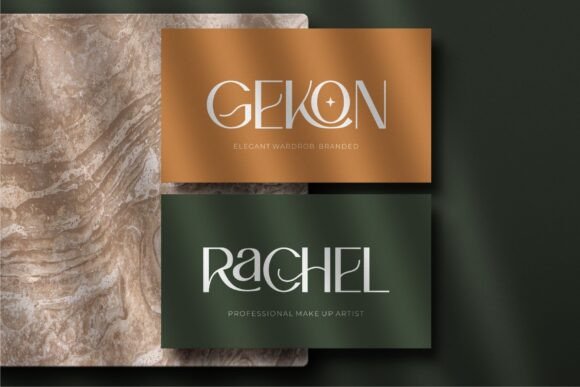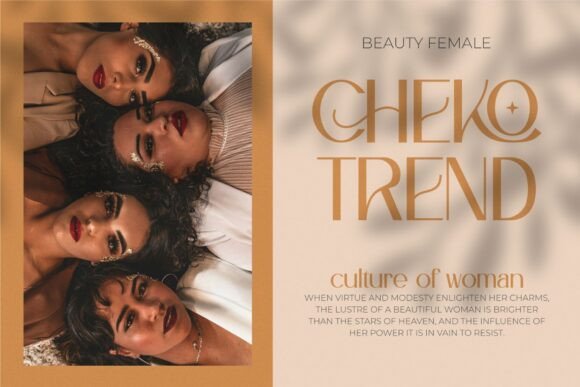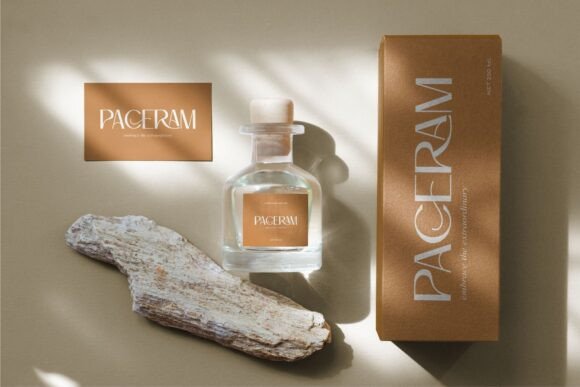
Introduction to Regelon Font
As a designer, there’s nothing quite like the thrill of discovering a new font that perfectly captures the essence of your creative vision. For me, that moment came when I stumbled upon the Regelon Font – a modern, trendy, and oh-so-cute serif font that’s equal parts charming and versatile. Its unique character, inspired by the warmth of wood, adds a touch of sophistication to any design, making it the perfect choice for a wide range of creative projects.
Whether you’re crafting an invitation card, designing a company logo, or working on a movie title, Regelon Font is an invaluable resource that’s sure to elevate your work. With its high-quality design and transparent background, it’s a free download that’s worth every penny. What sets Regelon apart is its ability to seamlessly blend with other design elements, making it an ideal choice for designers who value creativity and flexibility.
Key Features of Regelon Font
- High-quality design resource ideal for creative projects, offering a unique and stylish look.
- Transparent background option, providing flexibility for designers to customize and overlay text on different backgrounds.
- Available in a range of sizes and resolutions, making it suitable for various design applications, from small logos to large-scale graphics.
- Unique characteristics, such as its elegant and modern design, make it an excellent choice for designers seeking a distinctive look for their creative project.
- Perfect for designers who require a high-quality, professional-looking font for their design resource, without the need for extensive design experience.
Honest Review: Regelon Font
I recently stumbled upon the Regelon Font, a free design resource that caught my attention. As a designer, I’m always on the lookout for high-quality fonts that can elevate my creative projects. Regelon Font is one of those hidden gems that’s worth exploring.
- ✨ Beautifully crafted letters with a modern twist: The Regelon Font features sleek and sophisticated lettering that’s perfect for any design project.
- ✨ Versatile font style: This font can be used for a wide range of creative projects, from digital designs to print materials.
- ✨ Transparent background: The font’s transparent background makes it easy to use with any design element, giving you complete control over your design.
- ⚠️ Limited font sizes: Regelon Font seems to work best with standard font sizes, and using it with very large or small font sizes may not produce the best results.
- ⚠️ Not ideal for complex typography: While the font is great for simple designs, it may not be the best choice for complex typography projects that require multiple font styles.
Overall, I’m impressed with the Regelon Font. Its high quality and versatility make it a valuable addition to any designer’s toolkit. With a little creativity, you can achieve amazing results using this font. I highly recommend giving it a try for your next creative project.
Regelon Font
Design Resource for Creative Projects
The Regelon Font is a high-quality design resource ideal for various creative projects. With its transparent background, it can be easily integrated into different design applications.
Common Use Cases for Regelon Font
The Regelon Font is ideal for various design applications, including:
- Graphic design projects
- Digital art and illustrations
- Presentations and reports
- Brand identity and logo design